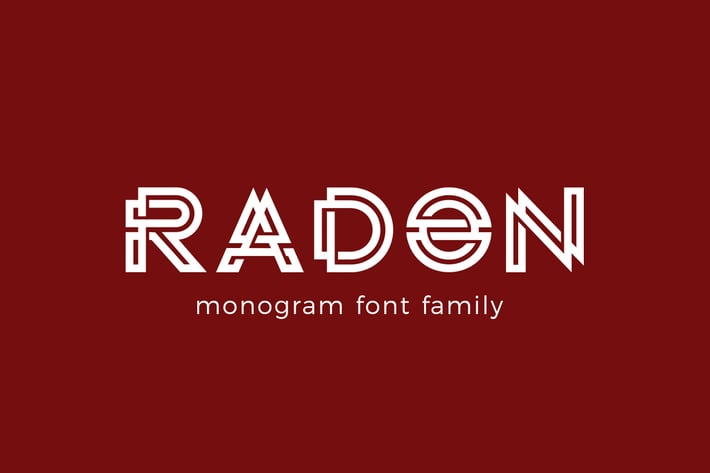
RADON monogram logo FONT
RADON is stylish creative font family useful for creating titles, monograms and logos.
It consists of three types: Regular, Bold, Deco